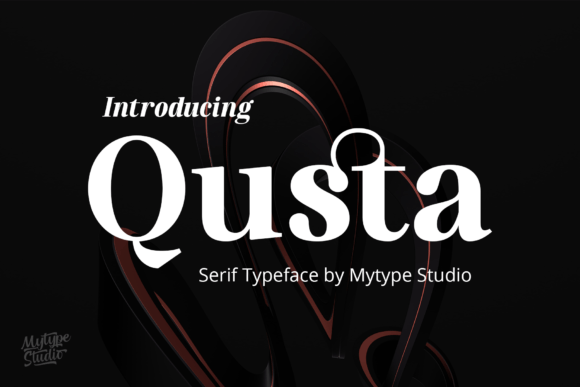
Embark on a typographic journey with Qusta Font, a modern serif masterpiece that exudes elegance and charm in every meticulously crafted character. This captivating font, hailing from the creative minds at Mytype Studio, is an ode to sophistication, inviting you to elevate your designs with a touch of timeless beauty.
Step into a world of possibilities with Qusta, a font family that effortlessly adapts to a myriad of design endeavors. Whether you seek to create captivating luxury logos that radiate exclusivity or craft alluring branding that exudes professionalism, Qusta effortlessly rises to the occasion. Its graceful curves and refined strokes bring a sense of elegance to classy editorial designs, making it a perfect choice for magazines, blogs, and online publications that cater to the discerning eye.
Unleash your creativity and explore the endless potential of Qusta's timeless aesthetics. Bring a touch of femininity and allure to women's magazines, capturing the essence of style and sophistication. Create cosmetics branding that radiates luxury and indulgence, evoking a sense of desire and allure. Design promotional materials that captivate and engage, leaving a lasting impression on your audience.
Immerse yourself in the world of fashion and haute couture, where Qusta's refined elegance finds its perfect home. Use it to craft logos, posters, and advertisements that exude an air of exclusivity and prestige. Qusta's versatility extends to the digital realm, making it an ideal choice for web design, social media graphics, and online marketing campaigns.
With Qusta, the possibilities are boundless. Indulge in its timeless beauty and create designs that resonate with your audience, leaving an indelible mark on their minds. Embrace the power of typography and elevate your creative vision to new heights with Qusta Font, a true masterpiece in the world of digital design.